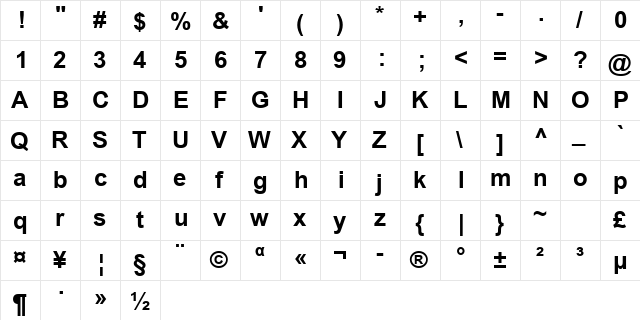
Arial Greek Bold
Design Context for Arial Greek Typeface
Arial Greek takes a measured approach to typography — its balanced proportions and neutral character make it a reliable workhorse for both digital and print work. Its bold stroke weight gives it real presence on the page.
Pro Tip: Use Arial Greek in both headline and body roles to test its range before committing to a single application.